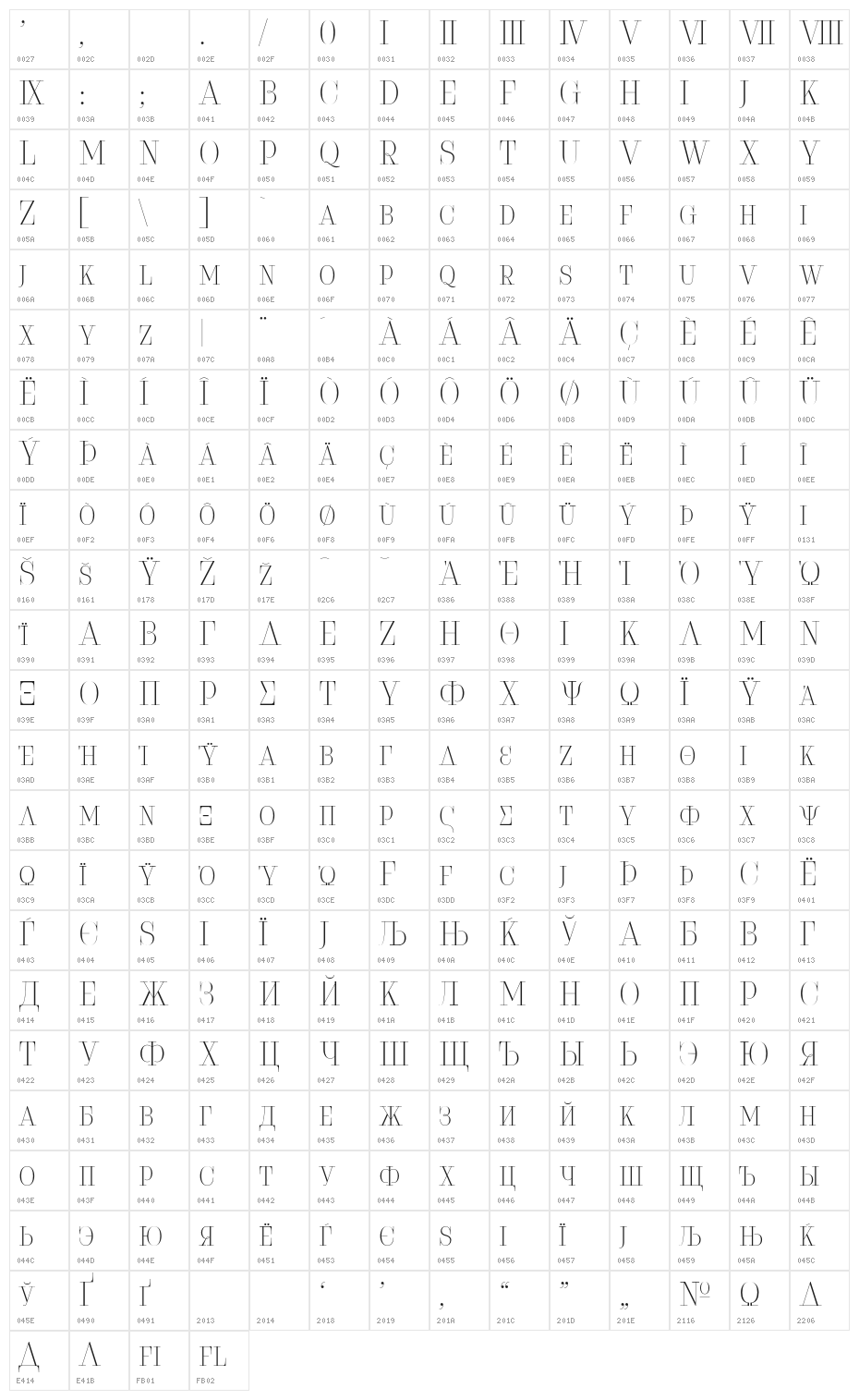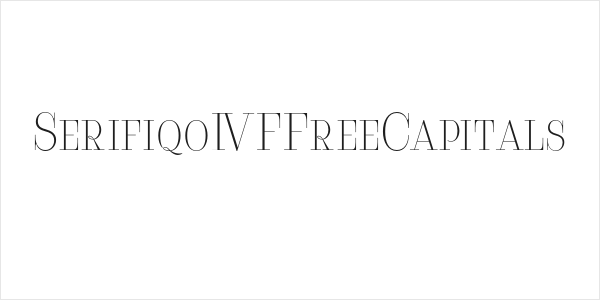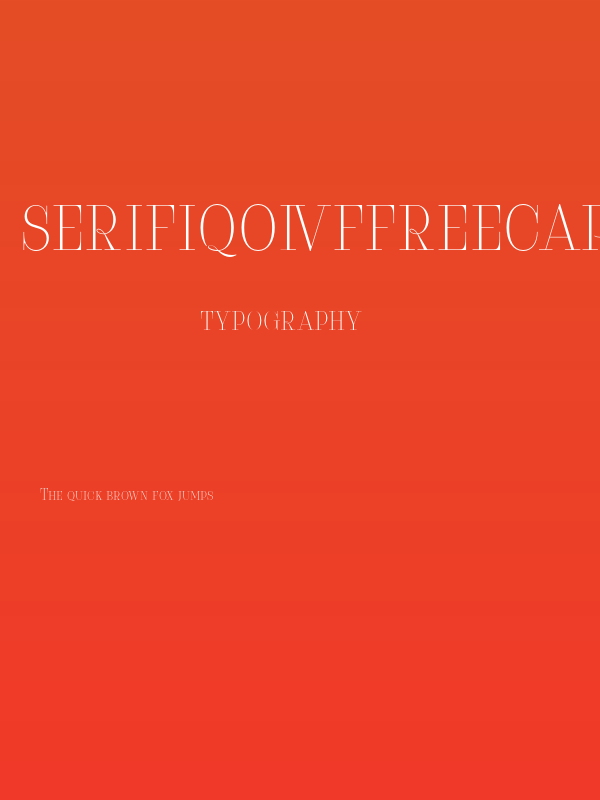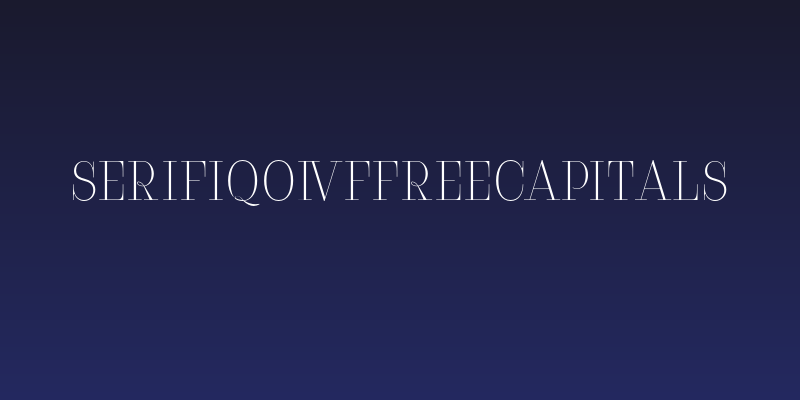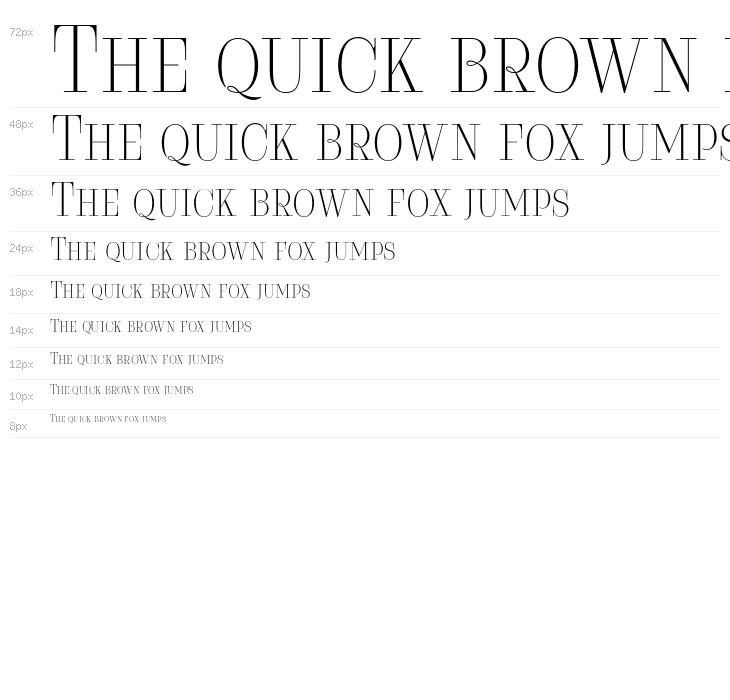
Serifiqo4FFreeCapitals Font
Serifiqo4FFreeCapitals Description
This font features a classic serif style with elegant and elongated letterforms. The uppercase letters are tall and narrow, with thin strokes and high contrast between thick and thin lines, giving it a sophisticated and refined appearance. The numerals are styled in a similar fashion, maintaining the overall elegance of the typeface. The special characters are designed to complement the letterforms, ensuring a cohesive look across all text elements. This font is ideal for projects that require a touch of class and tradition, such as formal invitations, editorial layouts, and branding for luxury products.
| Use Case | Headlines, Editorial, Branding |
| Proposed Projects | Ideal for formal invitations, editorial layouts, luxury branding, and classic-themed designs. |